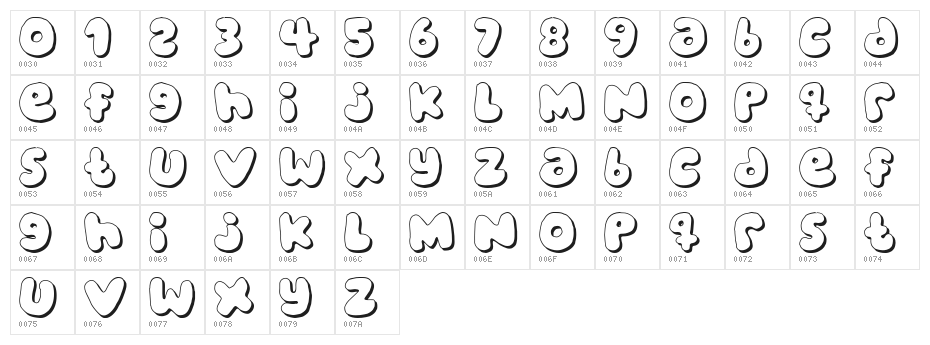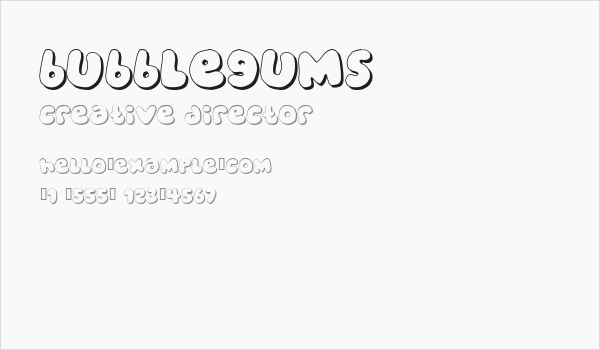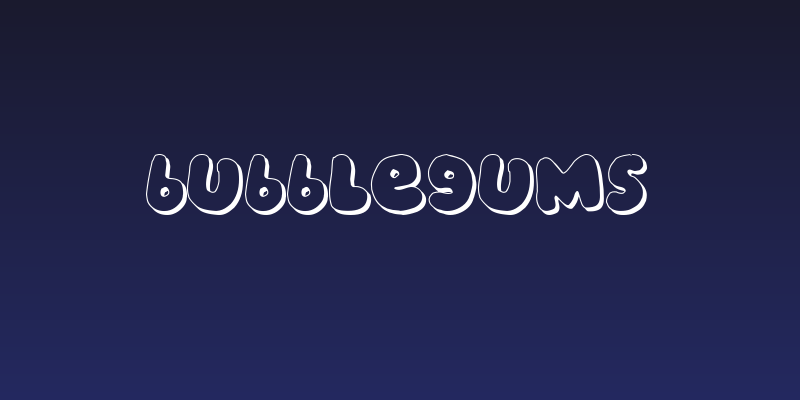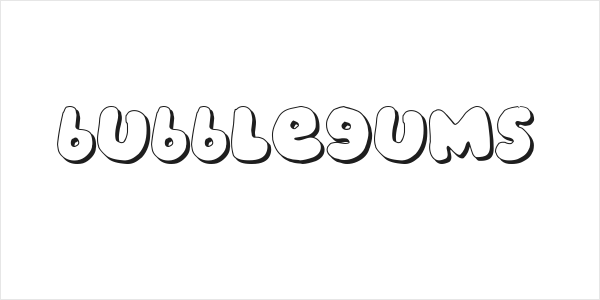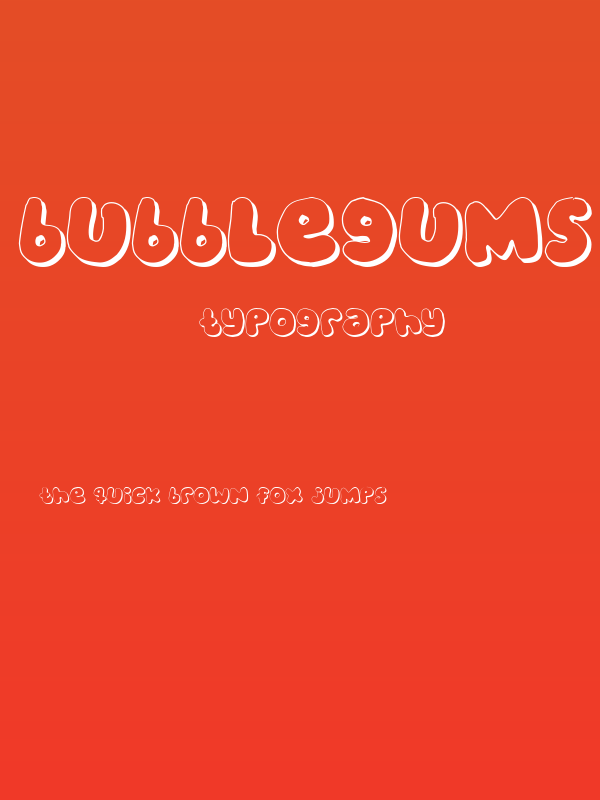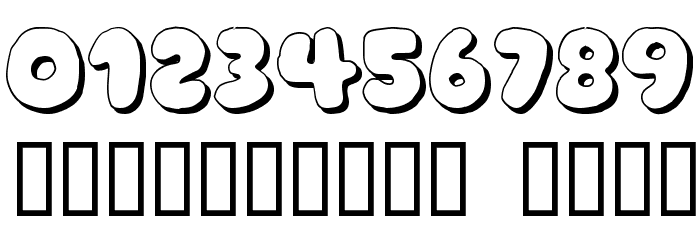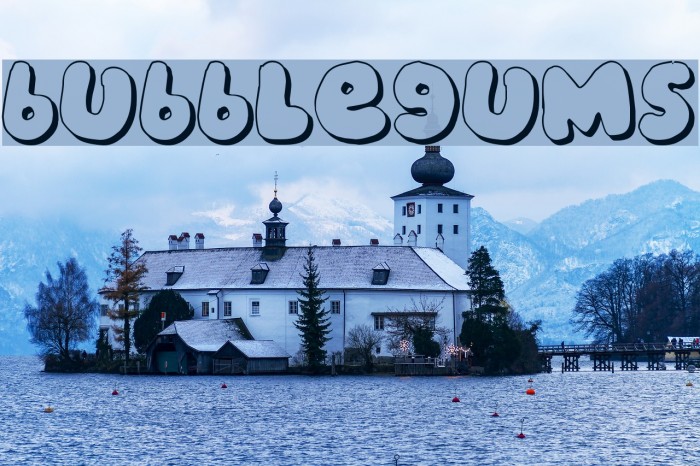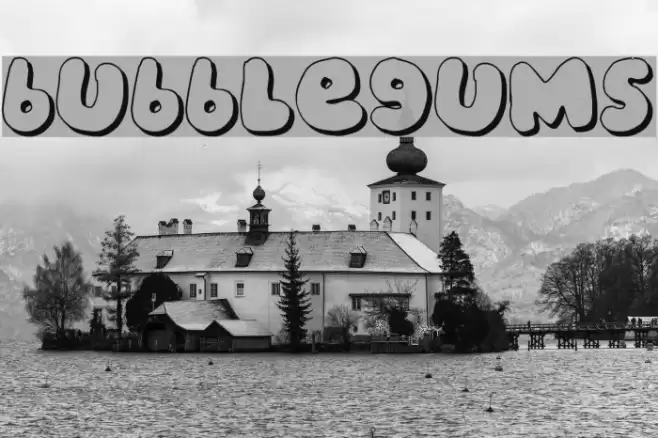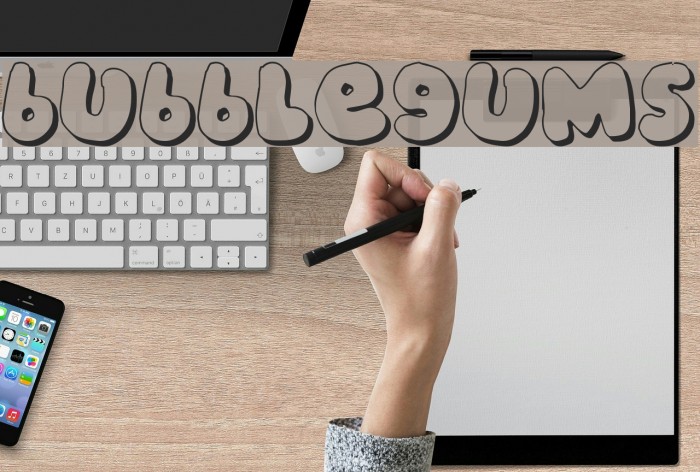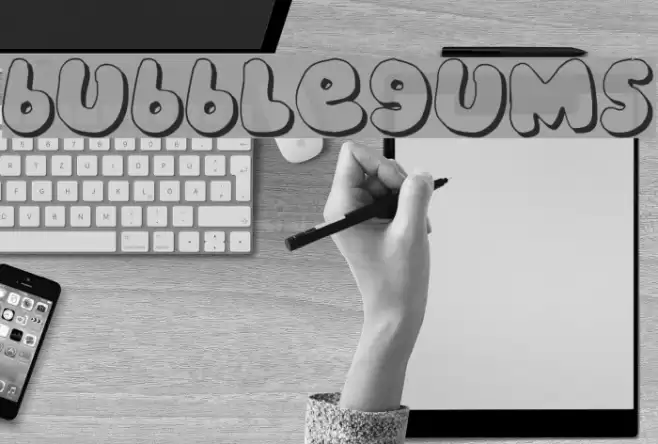
bubblegums Font
| Style général | Playful, Whimsical |
| Projets proposés | Ideal for children's books, playful branding, party invitations, and any project needing a fun, lighthearted touch. |